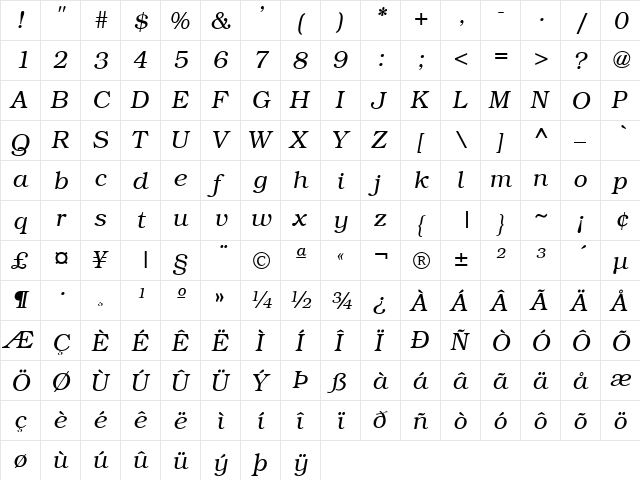
Brooklyn Italic
Design Context for Brooklyn Typeface
Brooklyn is a composed and adaptable typeface that performs quietly and consistently across a wide range of design contexts. Its italic angle brings a sense of urgency and motion to the letterforms.
Pro Tip: Try Brooklyn for annotation and caption copy alongside an upright companion — the contrast in angle creates a dynamic but ordered typographic system.